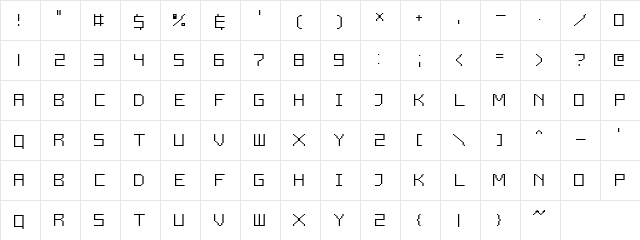
Fixier Light Regular Free Font
Fixier Light Regular
Design Context for Fixier Light
Fixier Light is a composed and adaptable typeface that performs quietly and consistently across a wide range of design contexts. Its slender proportions lend an understated elegance to any composition.